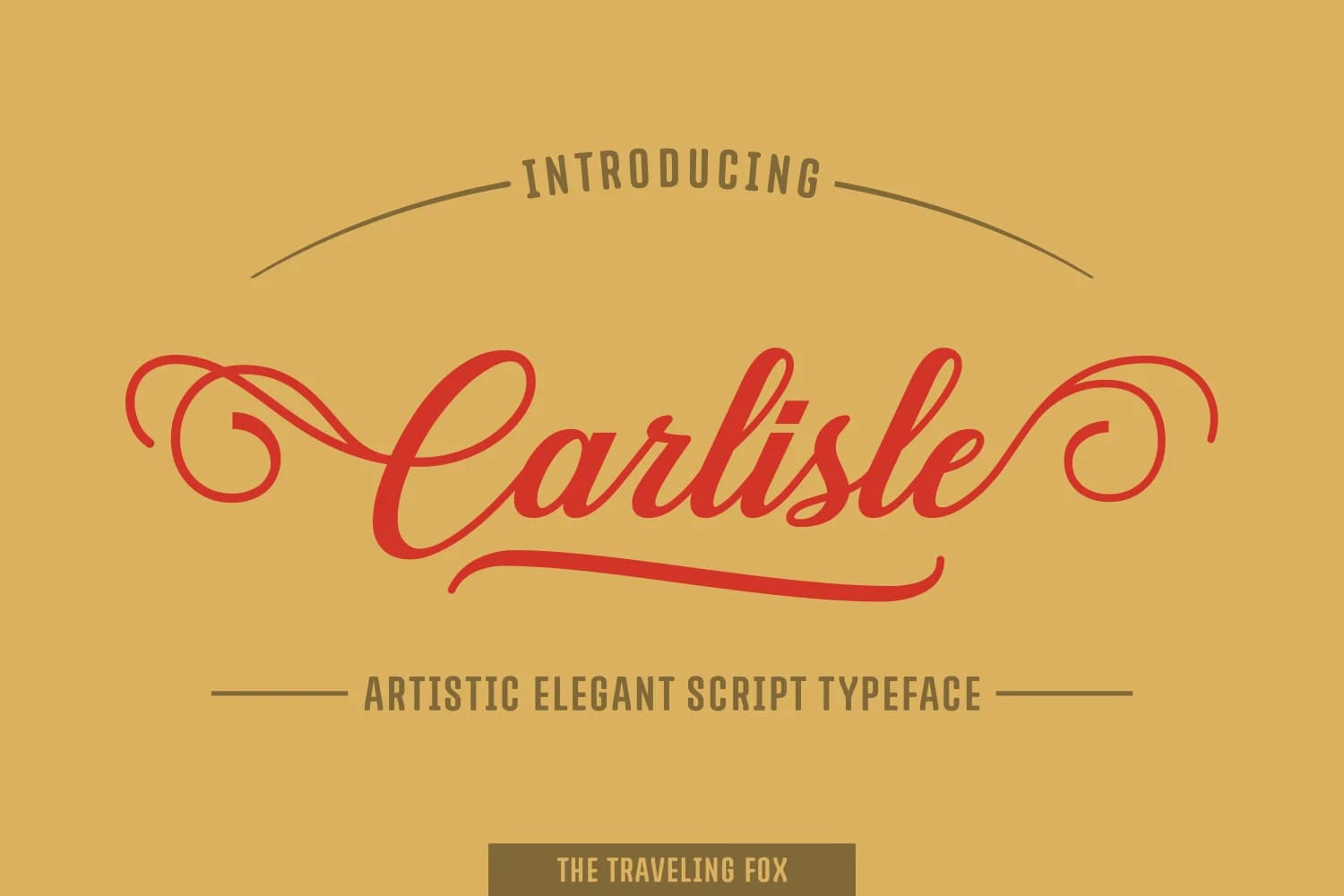
Carlisle by The Traveling Fox is a flowing handwritten script that brings sophisticated character and personal touch to typography. With its graceful letterforms and natural rhythm, this font excels at creating polished yet approachable designs. The script works beautifully across numerous applications, from wedding invitation suites and boutique product packaging to personalized stationery sets and branding for creative small businesses. Each design benefits from the font's inherent warmth and elegance.
The alternates and variation characters built into Carlisle ensure that each project can maintain a distinctive, customized appearance while keeping the typography feeling cohesive and refined. The letterforms display impressive versatility, working equally well at large display sizes for impactful headlines and focal points as they do when scaled down for supporting text elements. This adaptability makes Carlisle a valuable tool for designers tackling projects across both print and digital mediums.
Whether you're designing upscale branding materials, crafting handmade gift packaging, creating custom event invitations, or developing social media assets for emerging brands, Carlisle brings authentic character and careful craftsmanship to every application. The script maintains legibility even in complex layouts while never sacrificing its elegant, hand-drawn aesthetic. Discover how Carlisle can transform your next project by getting it on Creative Fabrica.
Carlisle Font is a script font that shines as a display or heading face. Pair it with a clean sans-serif or serif font for body text β the contrast creates a clear hierarchy while the two styles stay balanced and easy to read.